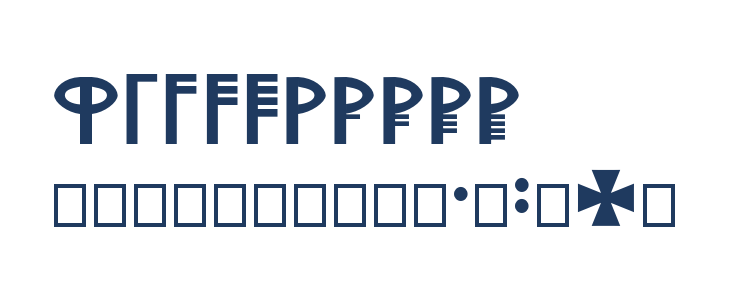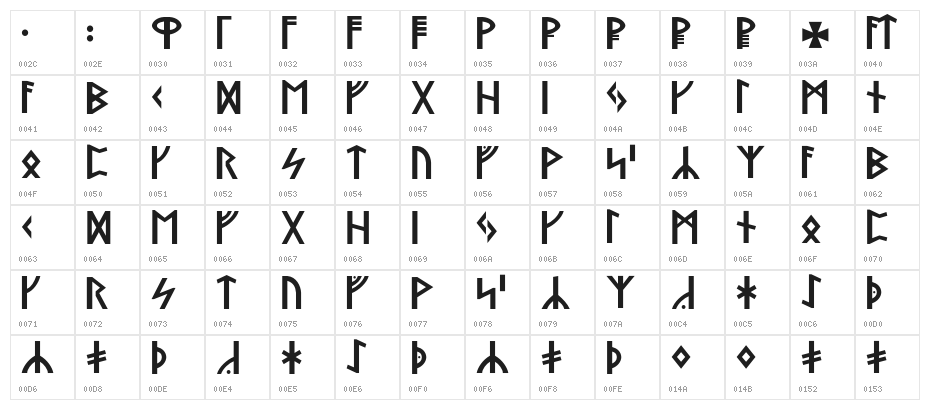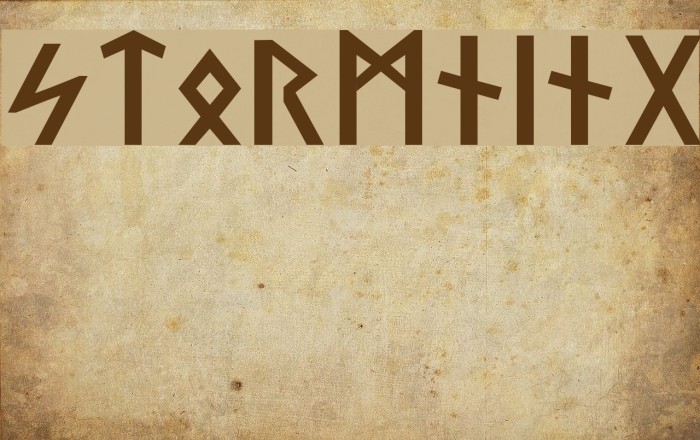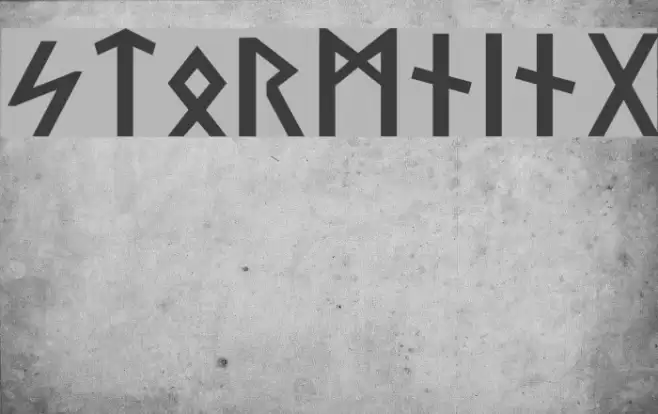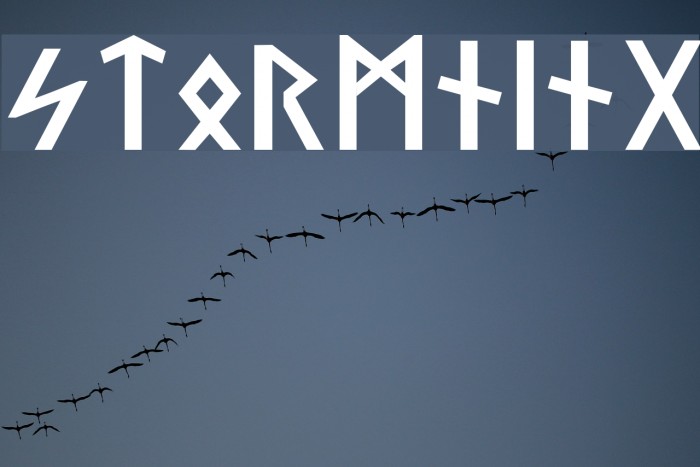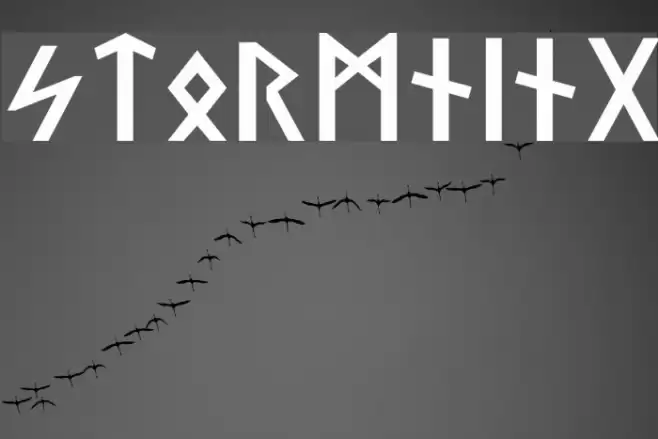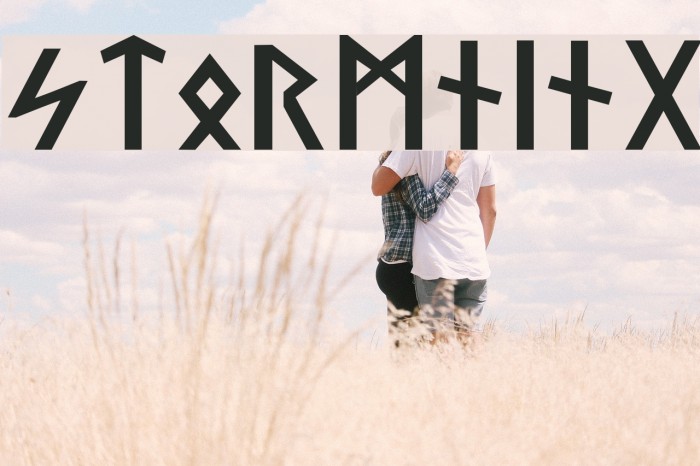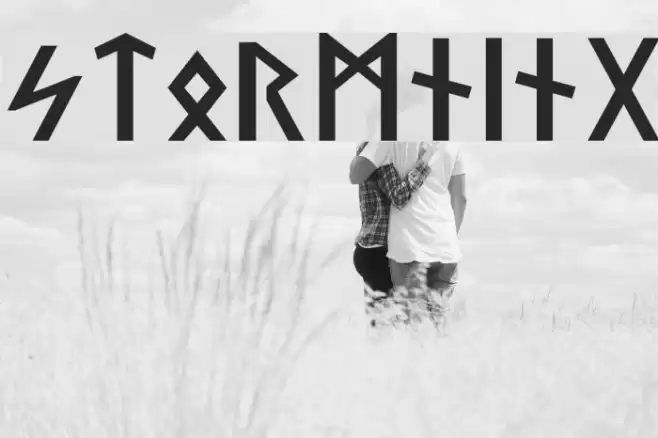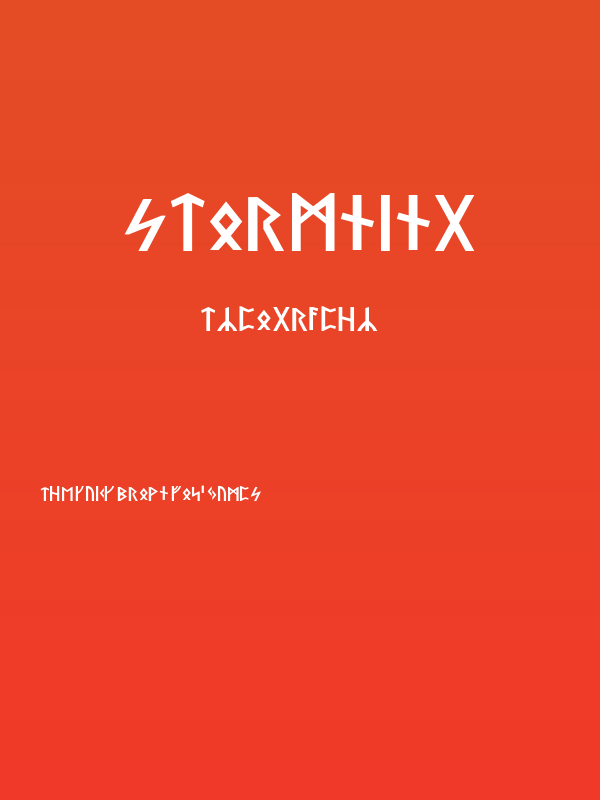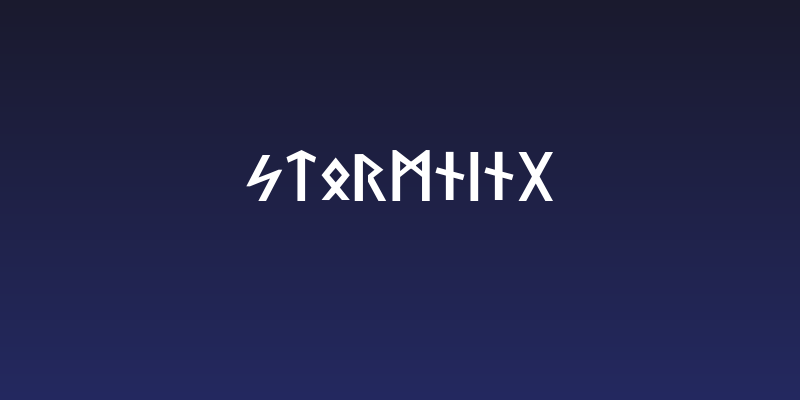
Stormning Font
Stormning Description
This font features a bold and angular design, reminiscent of ancient runic alphabets. Each character is crafted with sharp edges and geometric forms, creating a sense of strength and mystery. The uppercase letters are particularly striking, with intricate details that suggest a historical or mythical theme. The lowercase letters maintain the same angular style, ensuring consistency throughout the typeface. Numbers and special characters are designed to match the overall aesthetic, making this font suitable for thematic projects. The bold strokes and unique shapes make it stand out, ideal for capturing attention.
| Proposed Projects | Ideal for fantasy-themed projects, video game titles, movie posters, or any design requiring a mythical or historical touch. |